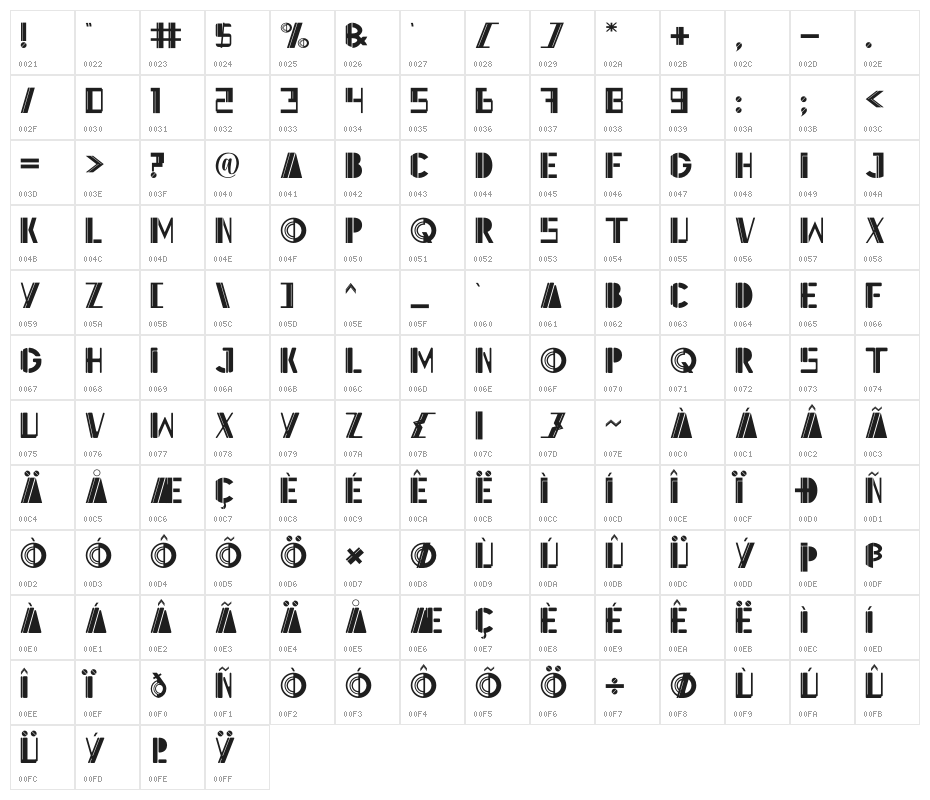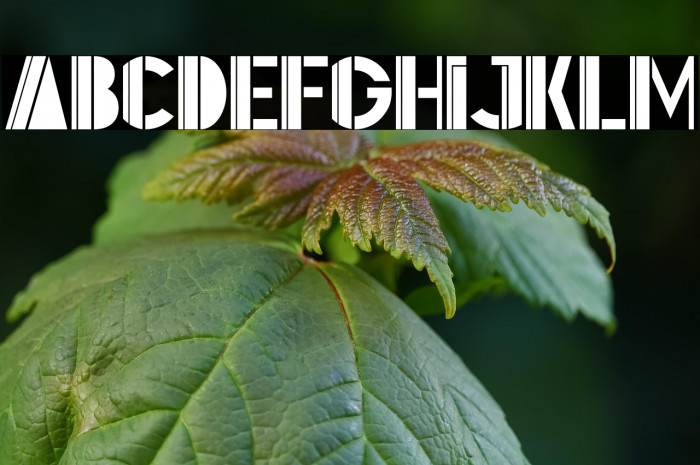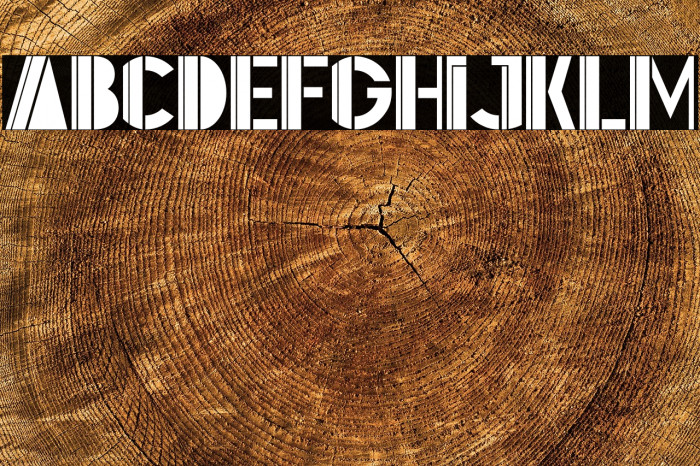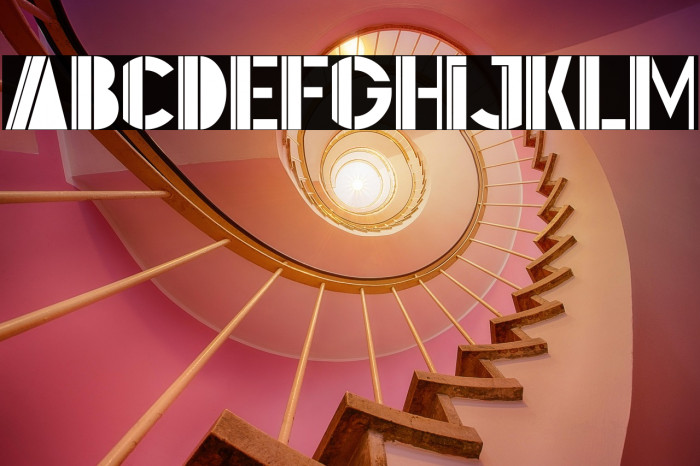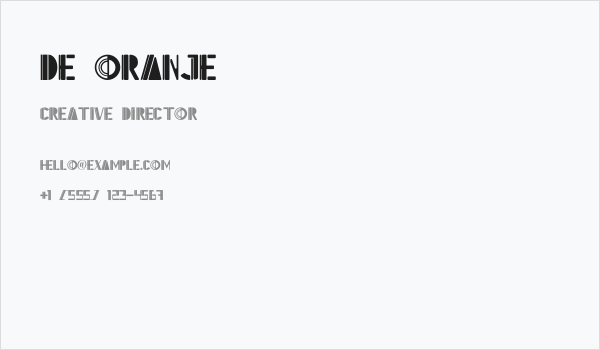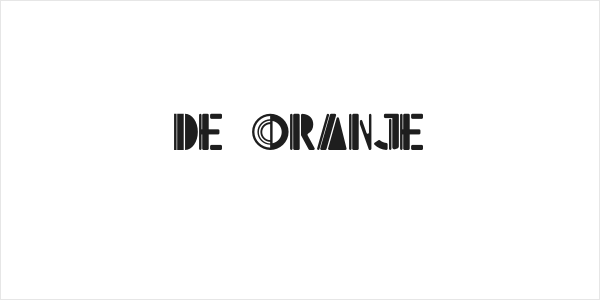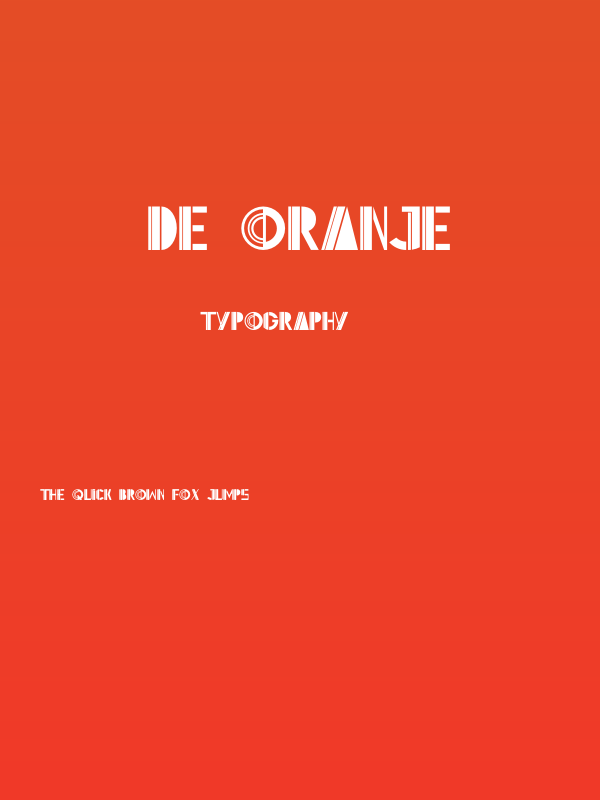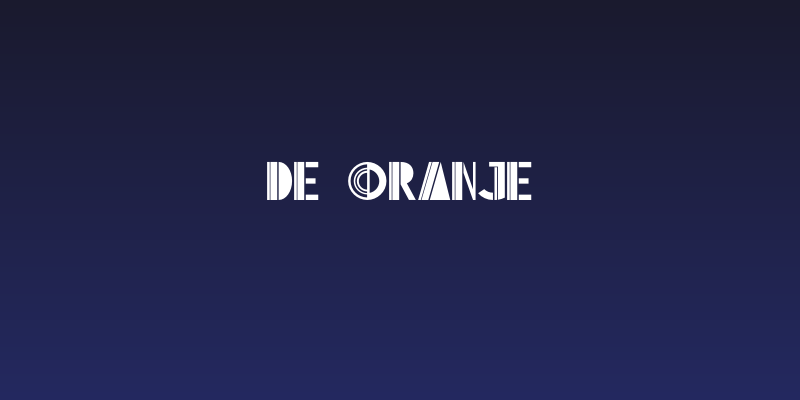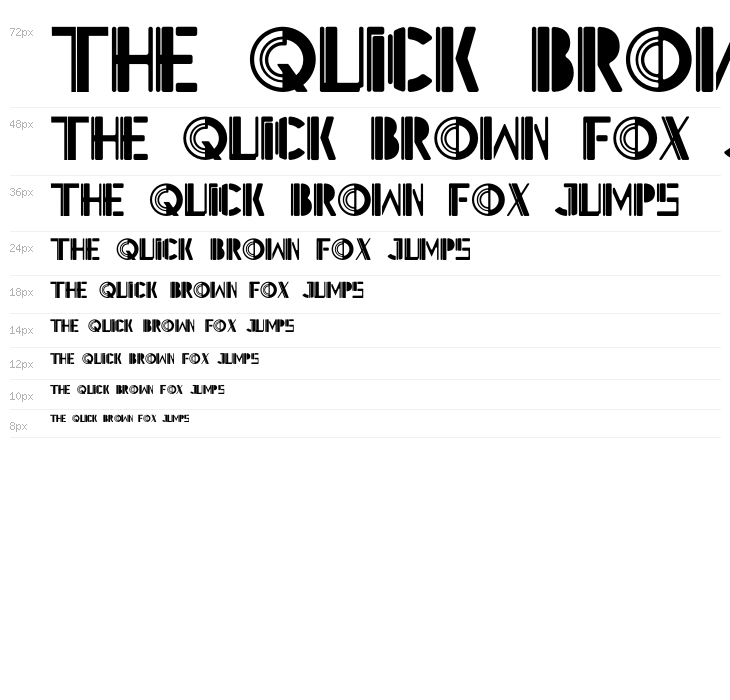
De Oranje Font
De Oranje Description
This font features a bold, geometric design with a distinctively modern and futuristic aesthetic. Each character is crafted with sharp angles and clean lines, creating a sense of precision and structure. The uppercase letters are particularly striking, with unique cutouts and varying line thickness that add visual interest. The lowercase letters maintain the same geometric style, ensuring consistency throughout the typeface. Numbers and special characters are equally bold and stylized, making them stand out in any design. The overall look is dynamic and eye-catching, suitable for projects that require a strong visual impact.
| Proposed Projects | Ideal for branding, posters, album covers, and any design that requires a bold, modern aesthetic. |